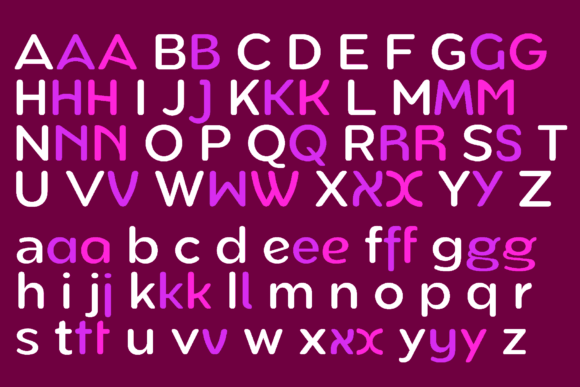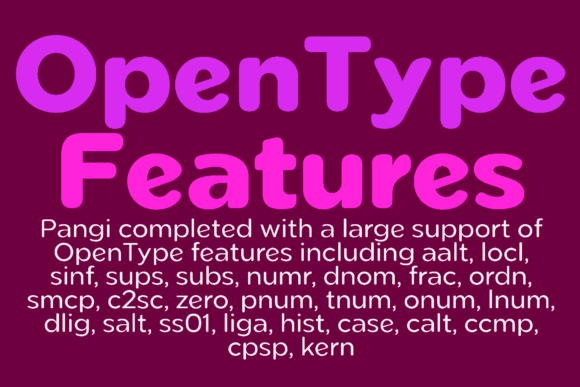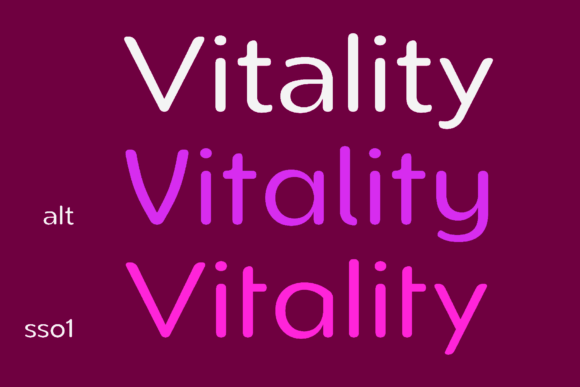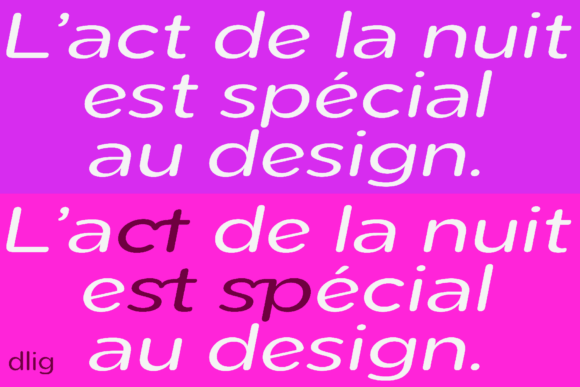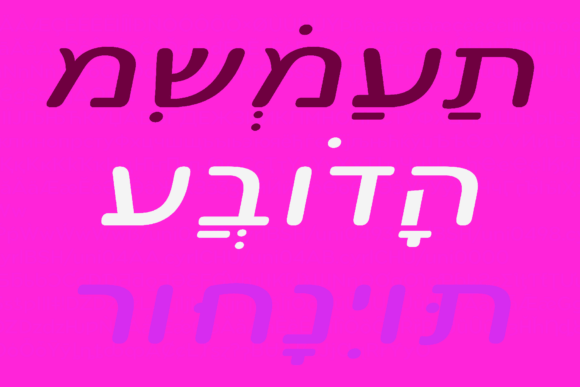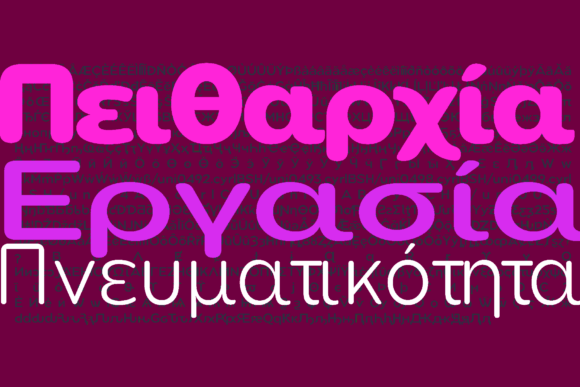
Introduction to Pangiroundednarrow Regular Font
Have you ever been stuck on a creative project, staring at a blank screen, searching for the perfect font to bring your vision to life? I’ve been there too. That’s why I’m excited to introduce you to a game-changing design resource: the Pangiroundednarrow Regular Font.
This clean, modern sans-serif font is more than just a pretty face – it’s a versatile workhorse that’s perfect for digital designs, print projects, or branding. With its friendly twist and sleek, geometric shapes, it’s easy to see why designers love Pangi Rounded Narrow Regular. Whether you’re working on a high-quality logo, a website with a transparent background, or a creative project that requires a free download, this font has got you covered.
In this article, we’ll dive into the world of Pangi Rounded Narrow Regular and explore what makes it such a valuable asset for designers.
Key Features of Pangiroundednarrow Regular Font
- Pangiroundednarrow Regular Font is a high-quality design resource ideal for creative projects, offering a unique and stylish font style.
- This font features a transparent background, allowing for easy layering and seamless integration into various design elements.
- Pangiroundednarrow Regular Font is designed to be highly scalable, with a size range of 10-100 points and a resolution of 300 DPI, making it suitable for both print and digital applications.
- This font’s narrow and rounded design elements make it an excellent choice for creative projects that require a clean and modern aesthetic.
- Pangiroundednarrow Regular Font is a versatile design resource that can be used in a variety of contexts, from branding and marketing materials to digital products and user interfaces.
Honest Review: Pangiroundednarrow Regular Font
One of the standout features of this font is its sleek and modern design. The clean lines and rounded edges give it a professional touch that works well in various design contexts, from corporate materials to digital interfaces. ✨
The Pangiroundednarrow Regular Font also boasts a high quality, making it perfect for high-resolution prints or digital displays. I particularly appreciate the transparent background option, which allows for seamless integration with other design elements.
- What works well: Modern design, clean lines, professional touch, high quality, transparent background option.
- Limitations: ⚠️ Limited character set, may not be suitable for extended text-based content.
Overall, I’m impressed with the Pangiroundednarrow Regular Font, and I’d definitely recommend it to designers looking for a high-quality, free download option for their creative projects.
The Pangiroundednarrow Regular Font is a versatile design resource ideal for creative projects. This high-quality font features a clean and elegant design, making it perfect for a variety of applications.
Experiment with different font sizes, colors, and combinations to achieve the desired effect. Use the Pangiroundednarrow Regular Font in conjunction with other design elements to create a cohesive and visually appealing design.
The Pangiroundednarrow Regular Font is suitable for a range of applications, including:
– Business cards and marketing materials
– Brochures and flyers
– Website design and development
– Social media graphics and advertising
Alternatives to Pangiroundednarrow Regular Font
Open Sans is a popular, clean, and highly legible font perfect for creative projects that require a professional touch. It’s ideal for use in logos, business cards, and websites where a high-quality font is essential. Open Sans is a great alternative to Pangiroundednarrow Regular Font for designers who want a modern and sleek look.
No, the Pangiroundednarrow Regular Font is a solid font and does not have a transparent background. However, you can use image editing software to create a transparent background for your design if needed.